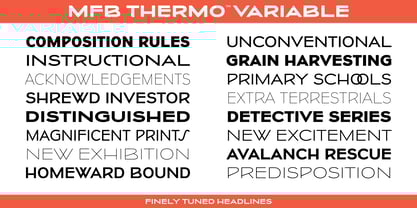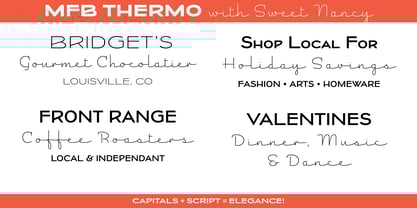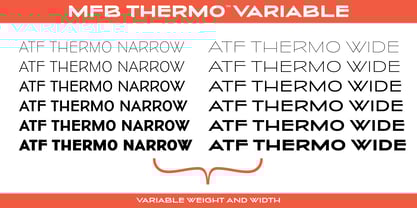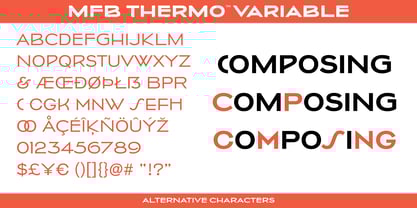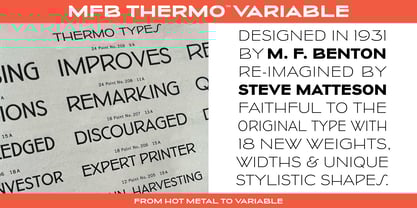
MFBThermo
by Matteson Typographics
The MFBThermo Font Family was designed by Steve Matteson and published by Matteson Typographics. MFBThermo contains 1 styles. More about this family
American Type Founders advertised this typeface family as an efficient tool for saving space and simplifying justification of small headlines. By providing three discreet widths and some alternative letters, a hand-compositor could intermix fonts to achieve more pleasing alignments of text. Designed in 1931, by Morris Fuller benton, the Thermo types proved to be commercially unpopular and were discontinued in 1938. This re-imagining, produced by Steve Matteson, remains faithful to the original but adds new weights and stylistic alternative shapes. The variable font version beautifully scales the widths and weights to provide the flexibility that Benton strived to achieve nearly 100 years prior.
Designers: Steve Matteson
Foundry: Matteson Typographics